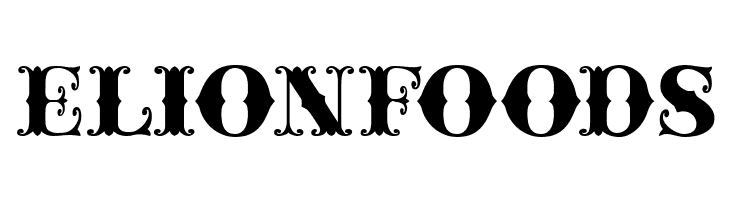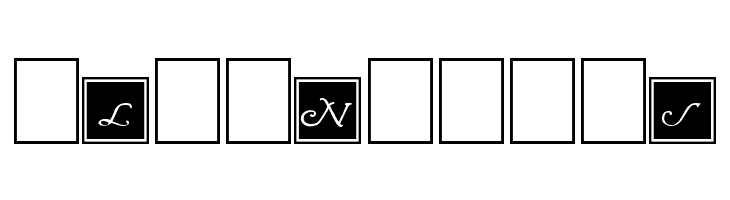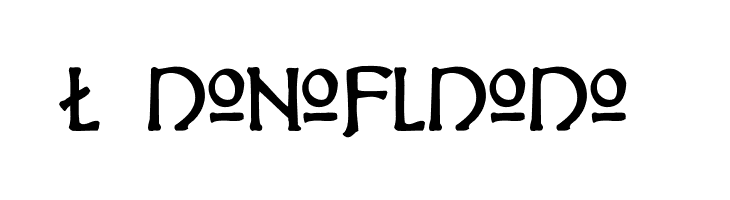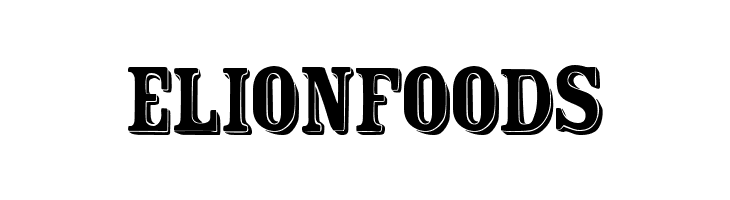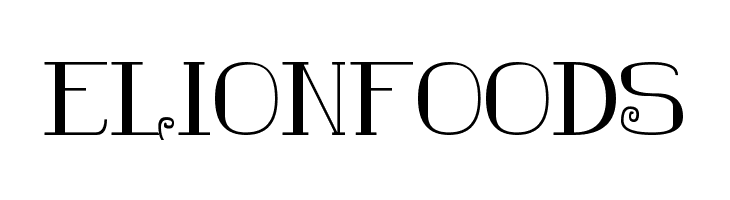
A bold, geometric font with a modern and condensed style.
An ornate and decorative font with vintage, theatrical flair.
A decorative script font with uppercase letters in square blocks, offering a classic and elegant style.
A whimsical and decorative font with artistic curves and flourishes.
A bold, engraved decorative font with a vintage style.
A bold, vintage-inspired serif font with strong, block-like serifs and a cohesive, decorative style.
A bold, striped font with a modern and playful geometric design.
A playful and elegant script font with a handwritten style.